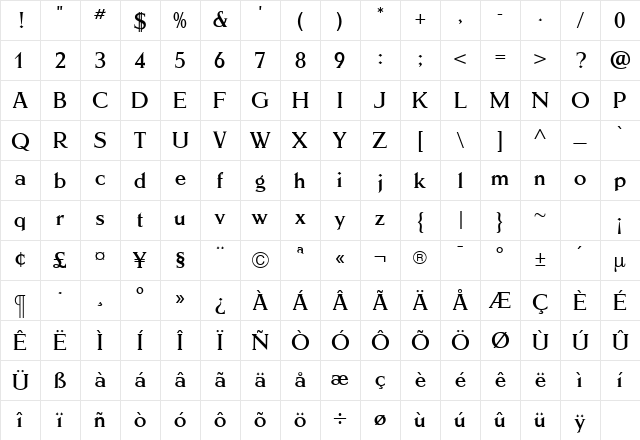
SchillerAntiquaBold Medium
Style: Medium
Design Context for SchillerAntiquaBold
SchillerAntiquaBold is a composed and adaptable typeface that performs quietly and consistently across a wide range of design contexts. Its bold stroke weight gives it real presence on the page.